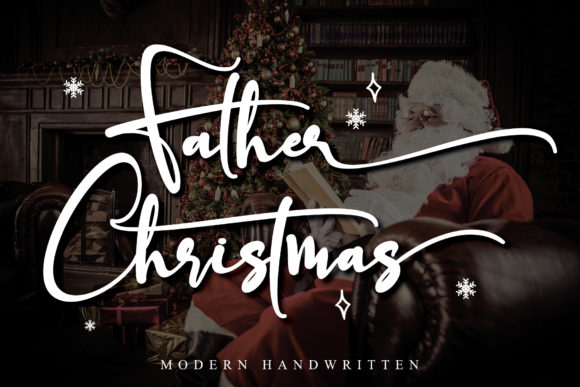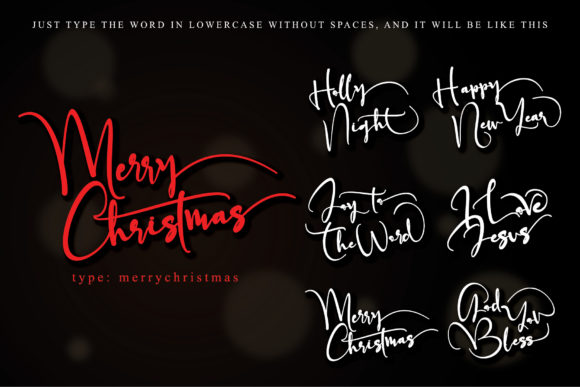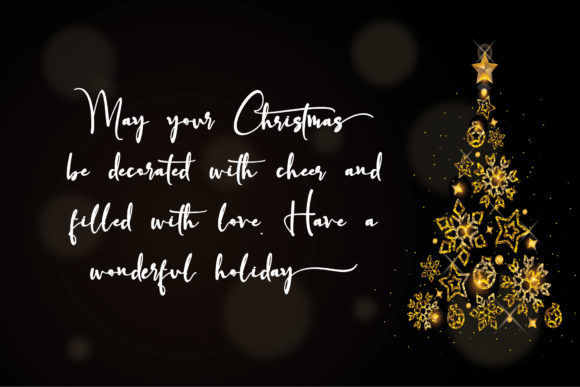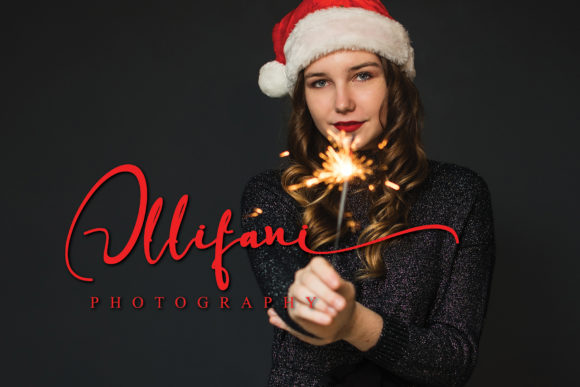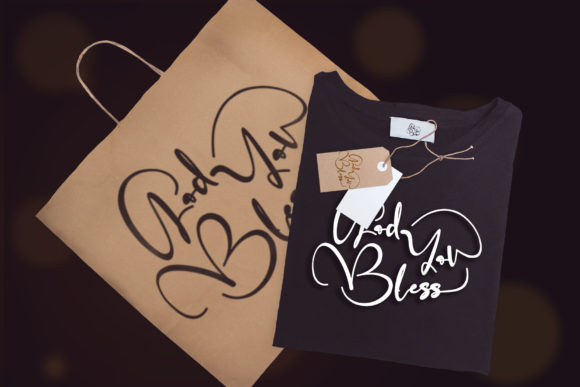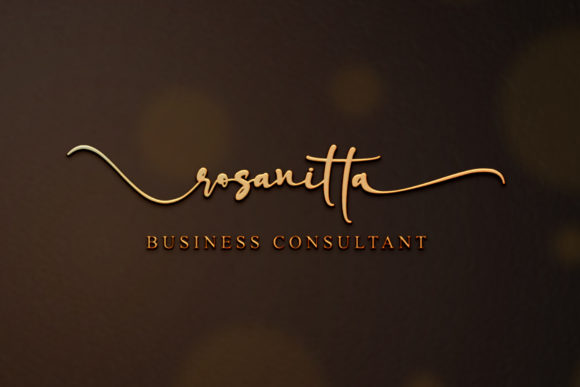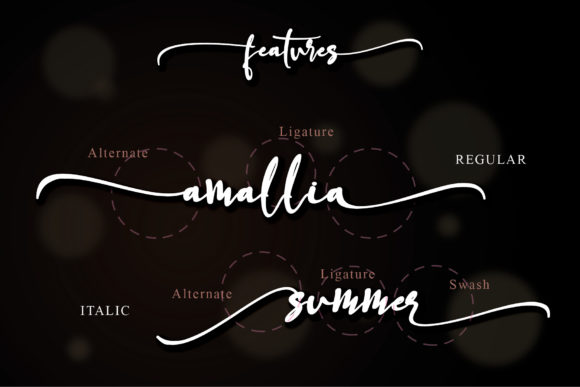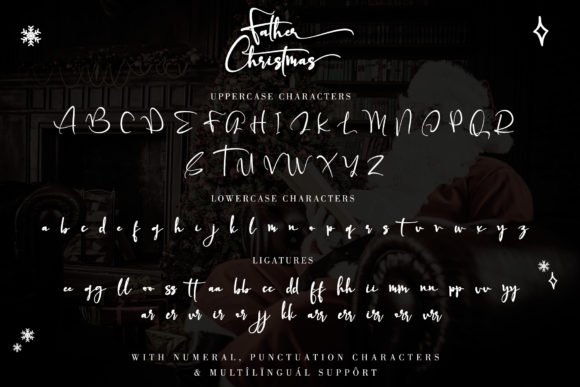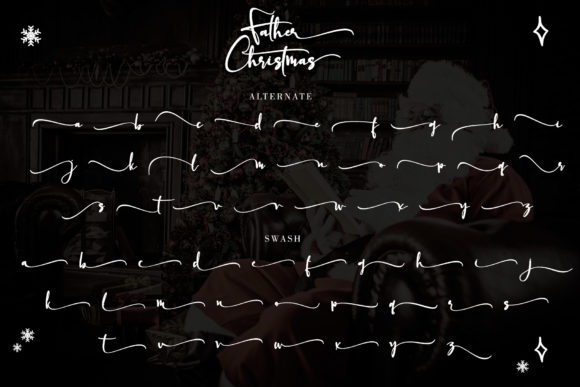
Father Christmas Font
About Father Christmas Font
Father Christmas is a charming and elegant handwritten font. It looks stunning on wedding invitations, thank you cards, quotes, greeting cards, logos, business cards and every other design which needs a handwritten touch.